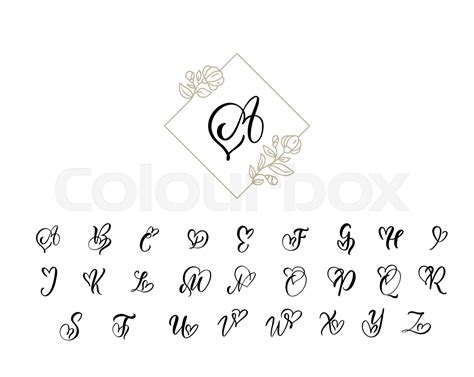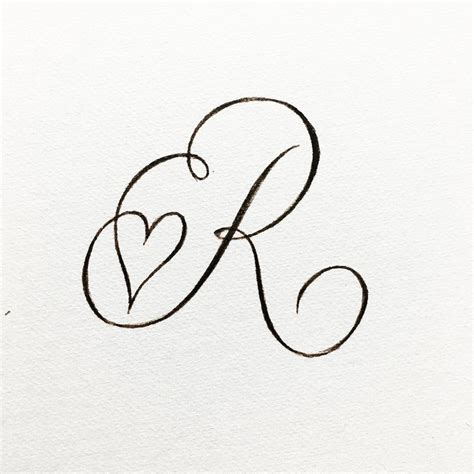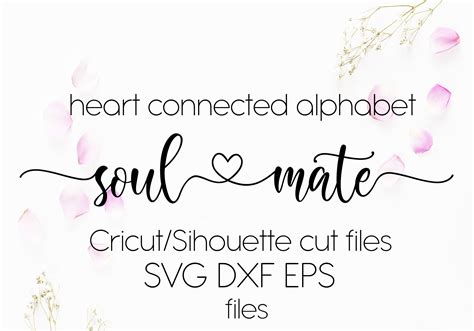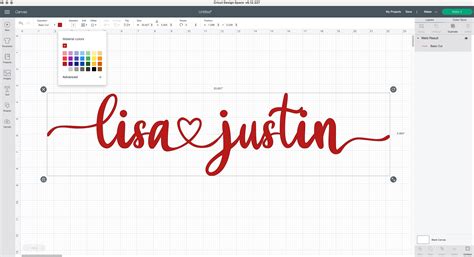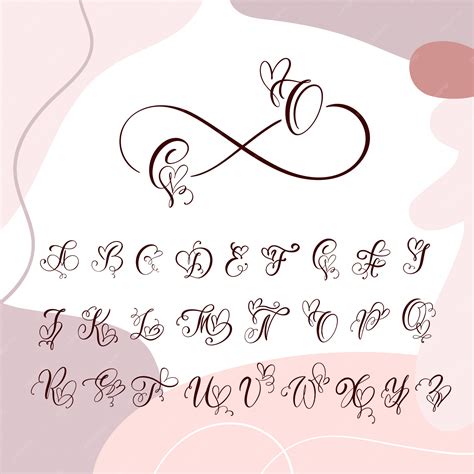
In the digital age, where communication is often reduced to emojis and abbreviations, there's a growing appreciation for the elegance and personal touch of handwritten notes. One way to bring this charm into the digital world is by using a cursive heart font. This font style not only adds a romantic and personal touch to your digital communications but also makes your messages stand out. Whether you're designing a wedding invitation, creating a love letter, or simply adding a personal touch to your social media posts, a cursive heart font can elevate your content to new heights.
What is a Cursive Heart Font?
A cursive heart font is a typeface that combines the flowing, connected letters of cursive writing with heart-shaped elements. This unique blend creates a font that is both elegant and whimsical, perfect for conveying emotions of love, affection, and romance. The heart-shaped elements can be integrated into the letters themselves or used as decorative accents, adding a playful and romantic touch to any text.
Why Use a Cursive Heart Font?
There are several reasons why a cursive heart font can be a valuable addition to your digital toolkit:
- Emotional Impact: The heart-shaped elements in the font evoke feelings of love and affection, making it ideal for romantic occasions.
- Visual Appeal: The flowing, connected letters of cursive writing add a touch of elegance and sophistication to your text.
- Versatility: A cursive heart font can be used in a variety of contexts, from wedding invitations to social media posts, adding a personal touch to any communication.
- Uniqueness: Unlike standard fonts, a cursive heart font stands out and makes your messages more memorable.
Where to Use a Cursive Heart Font
A cursive heart font can be used in a variety of settings, both personal and professional. Here are some ideas to get you started:
- Wedding Invitations: Add a romantic touch to your wedding invitations with a cursive heart font. It's perfect for conveying the love and joy of the occasion.
- Love Letters: Write a heartfelt love letter using a cursive heart font to make it even more special.
- Social Media Posts: Use a cursive heart font in your social media posts to add a personal touch and make your messages stand out.
- Greeting Cards: Create beautiful greeting cards for birthdays, anniversaries, or other special occasions using a cursive heart font.
- Branding: If your brand is all about love, romance, or personal connections, a cursive heart font can be a great choice for your logo or marketing materials.
How to Choose the Right Cursive Heart Font
With so many cursive heart fonts available, choosing the right one can be a challenge. Here are some tips to help you make the best choice:
- Consider the Occasion: Think about the context in which you'll be using the font. For example, a more formal wedding invitation might require a more elegant and understated cursive heart font, while a playful social media post could benefit from a bolder, more whimsical design.
- Readability: While aesthetics are important, it's also crucial to choose a font that is easy to read. Make sure the letters are clear and distinct, even at smaller sizes.
Top Cursive Heart Fonts to Consider
Here are some popular cursive heart fonts that you might consider for your projects:
| Font Name | Description | Best For |
|---|---|---|
| Love Story | A romantic and elegant cursive heart font with delicate heart-shaped accents. | Wedding invitations, love letters |
| Sweetheart | A playful and whimsical cursive heart font with bold heart-shaped elements. | Social media posts, greeting cards |
| Romantic Cursive | A classic cursive font with subtle heart-shaped accents, perfect for a timeless look. | Branding, formal invitations |
| Heartfelt | A modern cursive heart font with clean lines and bold heart-shaped elements. | Digital designs, social media graphics |